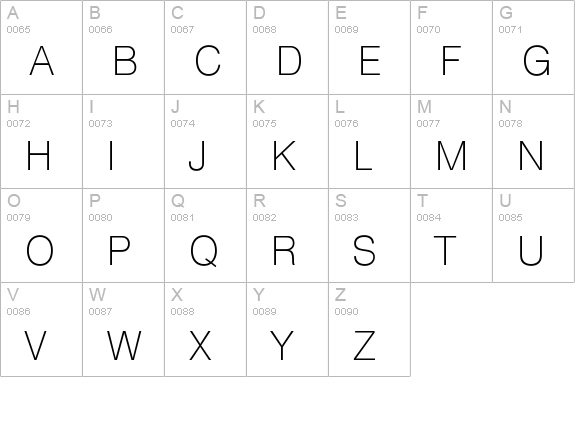
Olympia-Xlight Font Details
Olympia-Xlight is a stunning and elegant font that exudes sophistication and modernity. With its delicate and graceful design, Olympia-Xlight is perfect for adding a touch of class to any project. Whether you're designing a wedding invitation, creating a logo, or working on a branding project, this font will elevate your work to the next level. What makes Olympia-Xlight even more appealing is that it is completely free to download. You can easily access this exquisite font at FontsMarket.com, where you can enhance your designs with its beauty and charm without any cost. Don't miss out on the opportunity to elevate your projects with the timeless appeal of Olympia-Xlight. Download it now and unlock a world of creative possibilities at your fingertips.